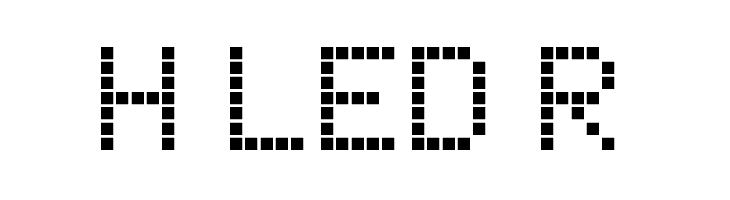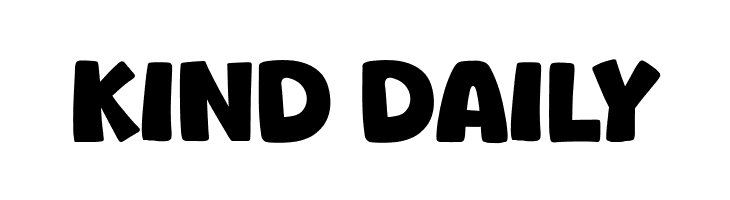
( Fonts by Saridezra )
A bold, playful font with a hand-drawn, casual style.
( Fonts by MJType )
A playful, rounded font with a handwritten style and bold, smooth curves.
A bold, playful font with rounded, bubble-like characters ideal for fun and whimsical designs.
( Fonts by Jimtype Studio )
A playful, bold font with rounded, bubbly characters and a retro-modern style.
( Fonts by Hyundai STVF LED )
A pixelated, LED-style font with a modern, digital aesthetic.
A bold, modern font with sharp angles and smooth curves.
( Fonts by Zansari )
A casual, handwritten cursive font with smooth, flowing lines.
( Fonts by Origin Type )
( Fonts by Khurasan™ )
A bold, rounded font with a playful, hand-drawn appearance.
( Fonts by Khurasan™ )
A playful, bold, and rounded font with a whimsical charm.